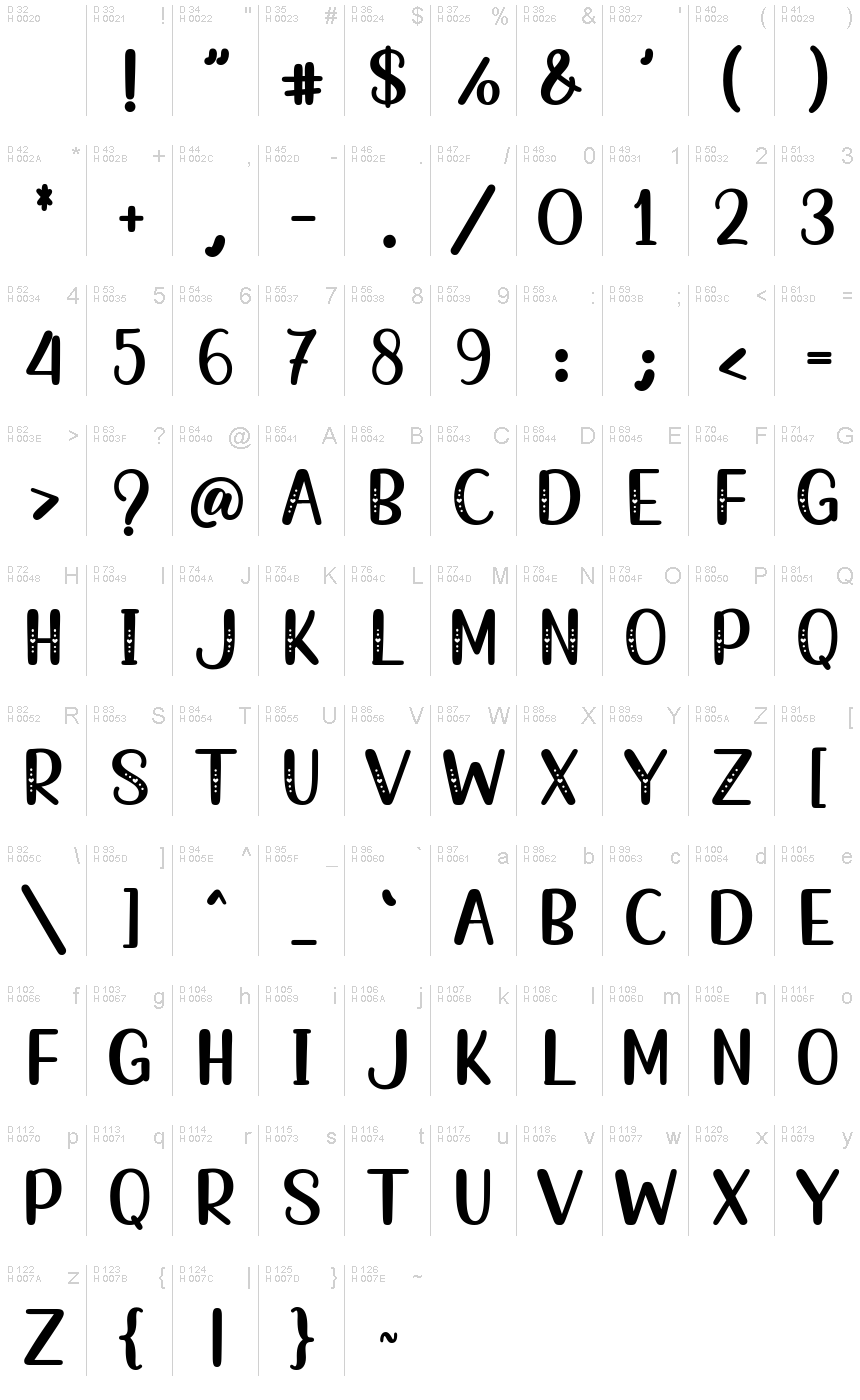
HelloBesty Sans
HelloBesty Sans, a brainchild of the talented Makashi, is not just another addition to the plethora of display fonts available; it's a standout decorative typeface that instantly captivates with its aesthetic allure. Crafted with an eye for stylish flair, HelloBesty Sans boasts playful yet sophisticated letterforms that are designed to make a statement.
With its charmingly unique character shapes and creative embellishments, this font exudes an expressive vibe that is simultaneously modern and whimsical. It’s an ideal choice for designers seeking to inject personality and energy into their projects. Whether gracing the pages of a chic magazine layout, the branding of a trendy startup, or the title screen of an indie game, HelloBesty Sans is versatile enough to adapt to various creative scenarios while maintaining its distinctive visual impact.
Embrace the inventive spirit of HelloBesty Sans in your next project and let your designs speak volumes with this enchanting typographic creation from Makashi.